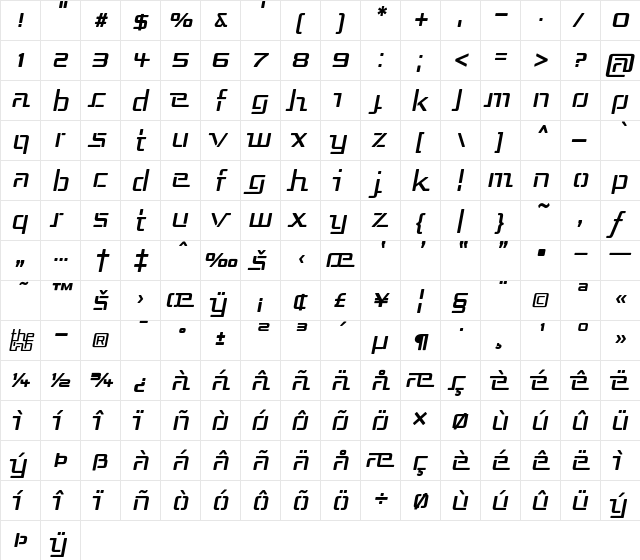
Republika III Italic
Design Context for Republika III Typeface
Republika III takes a measured approach to typography — its balanced proportions and neutral character make it a reliable workhorse for both digital and print work. Its italic angle brings a sense of urgency and motion to the letterforms.
Pro Tip: Try Republika III for annotation and caption copy alongside an upright companion — the contrast in angle creates a dynamic but ordered typographic system.